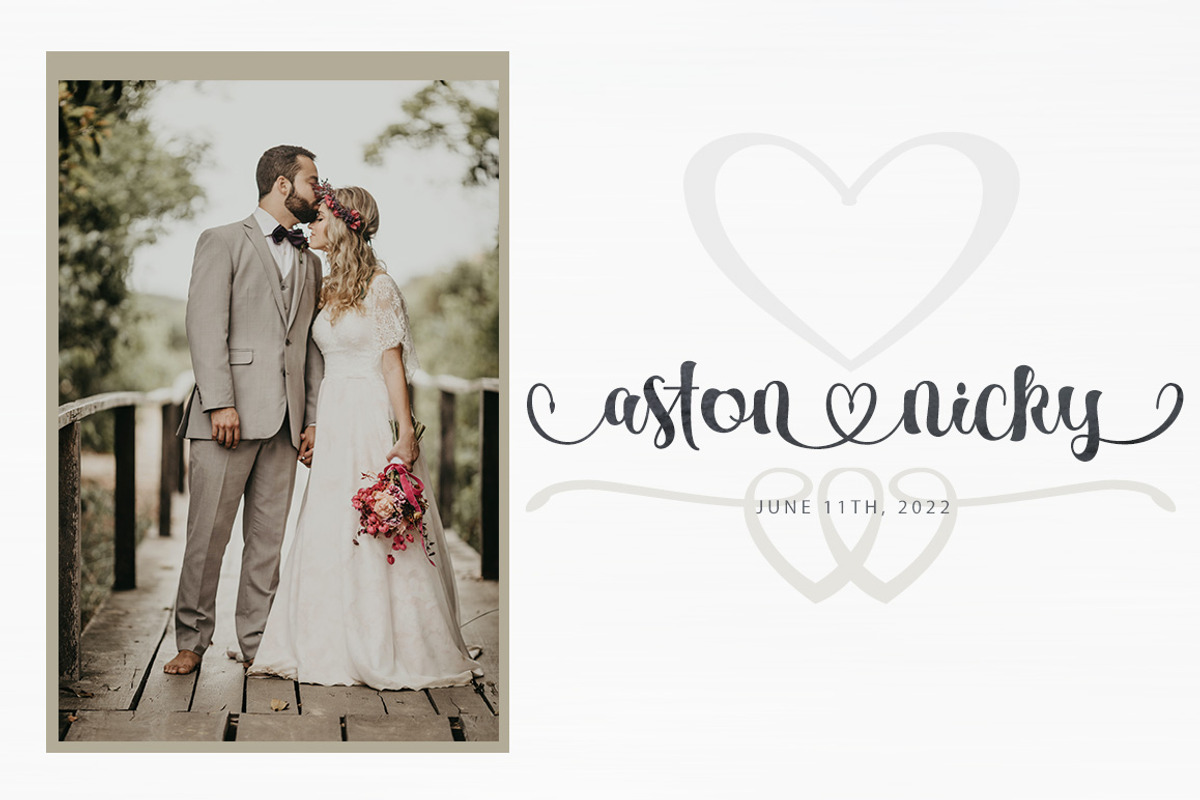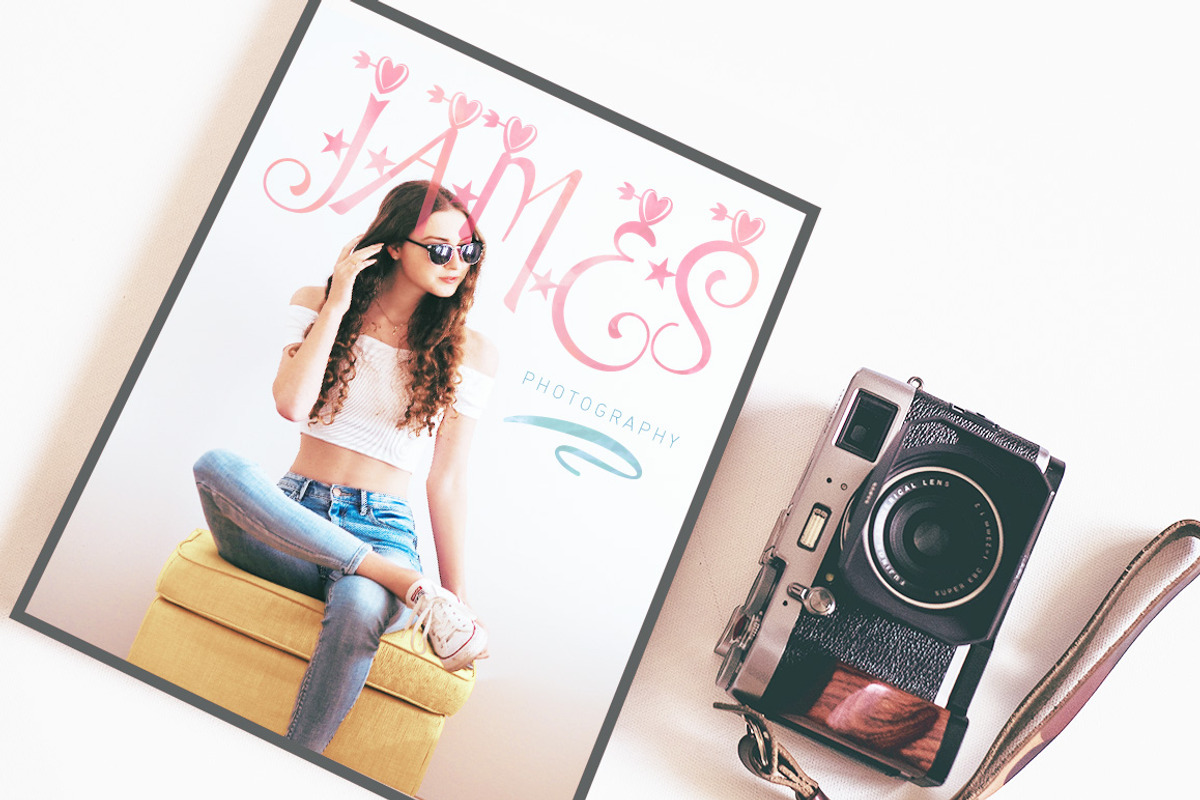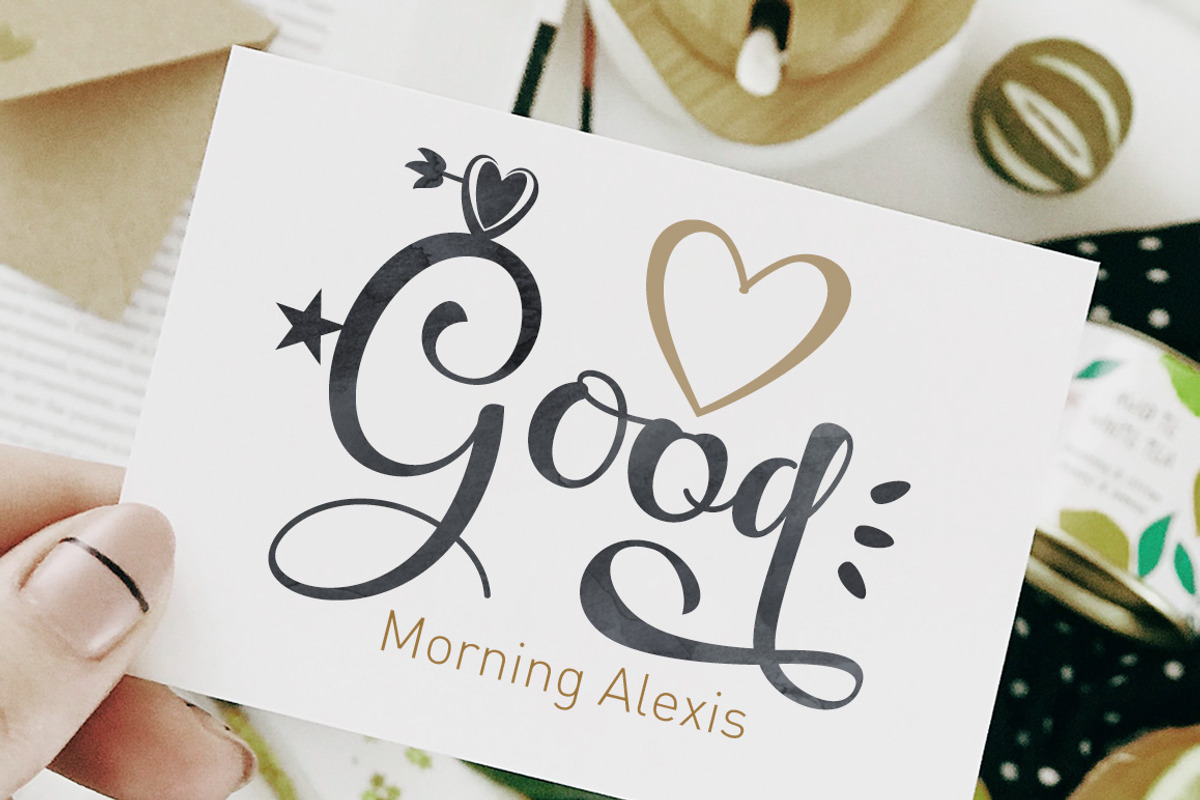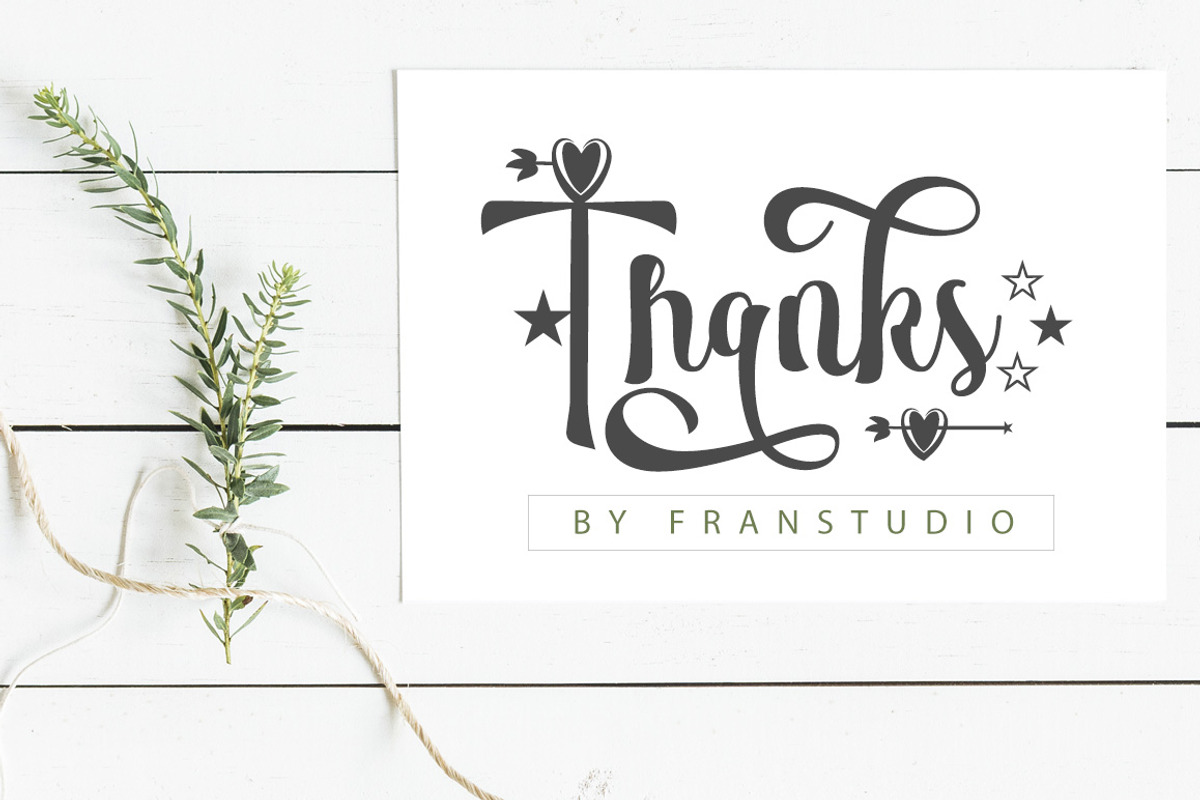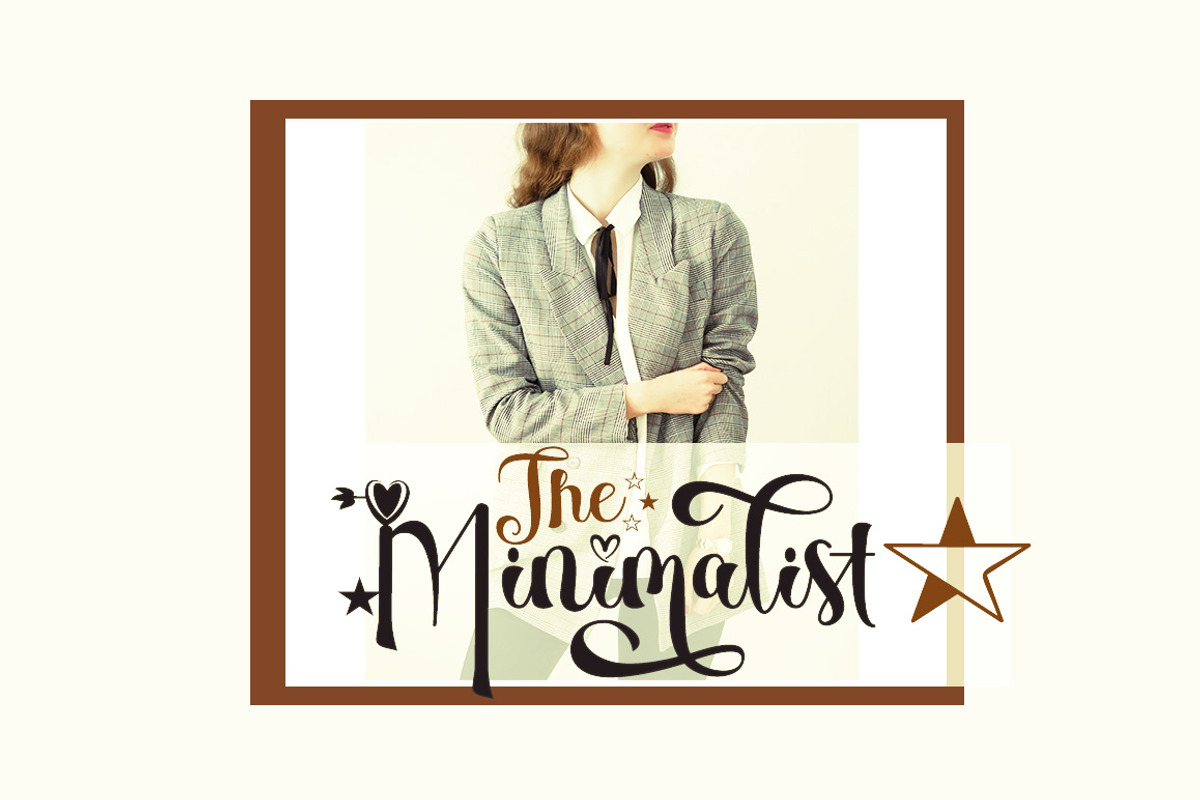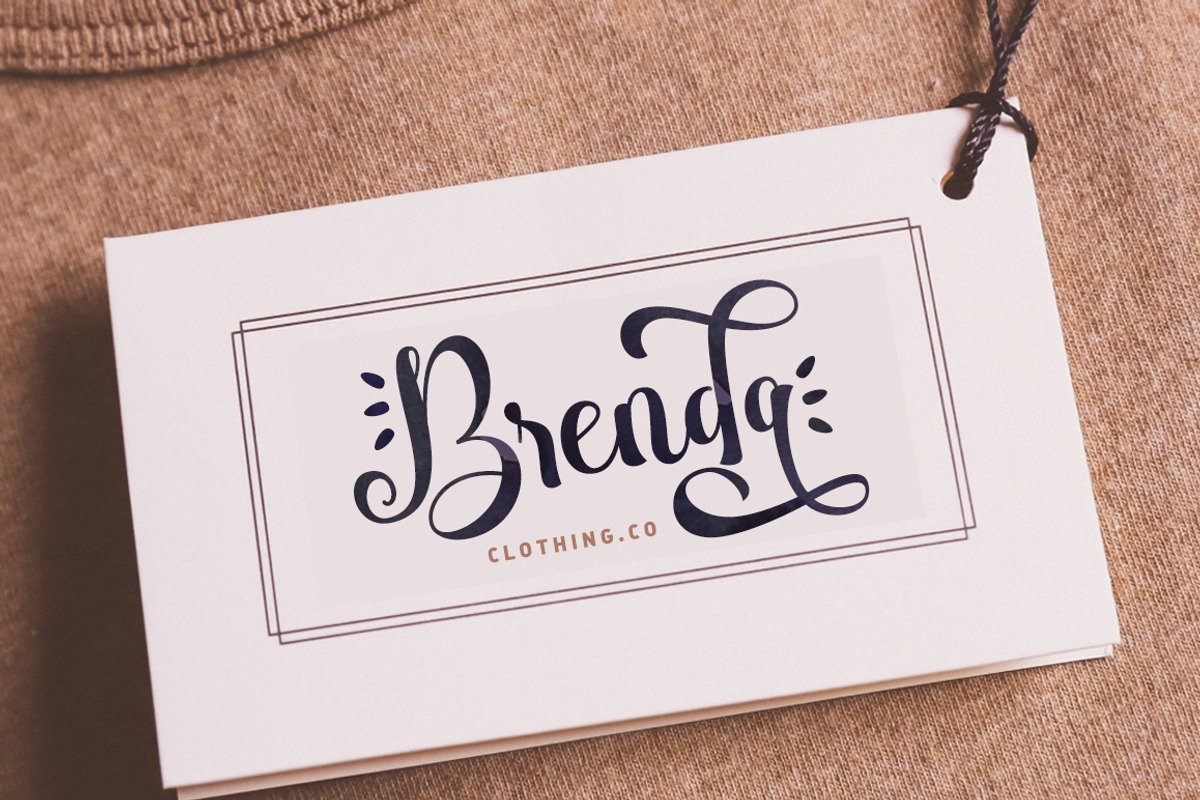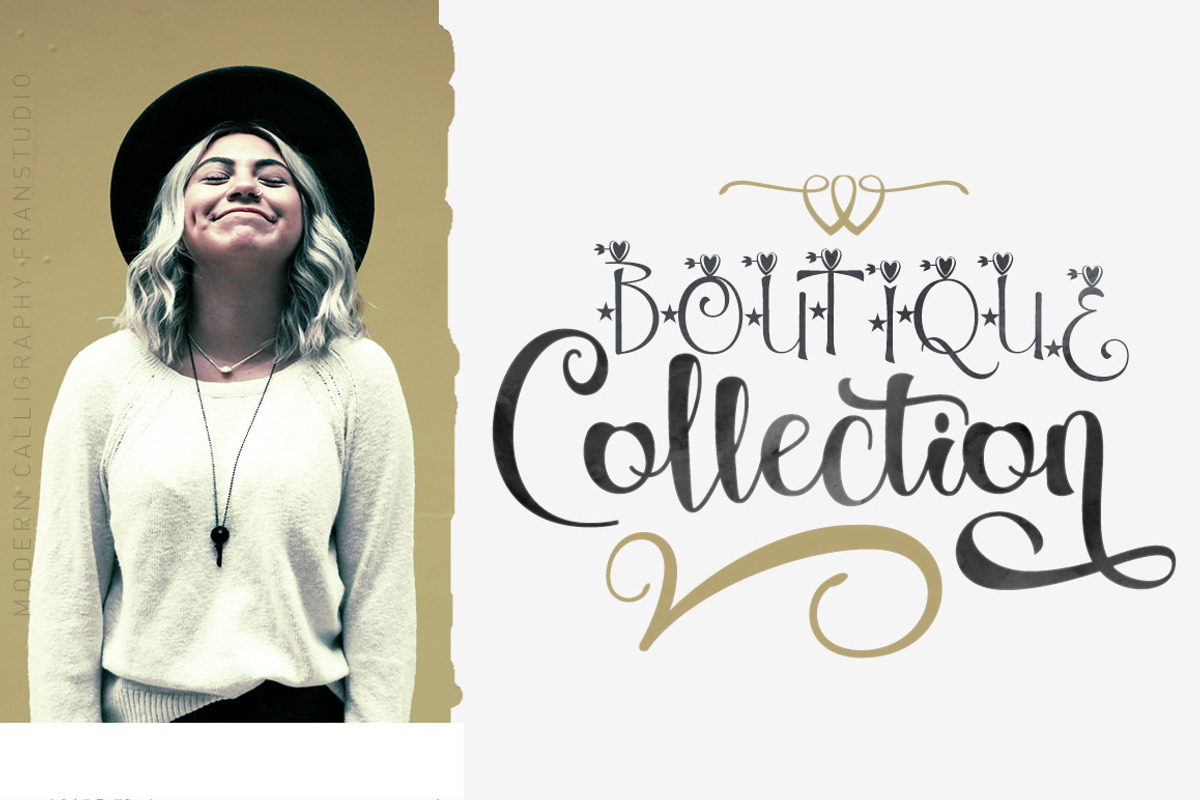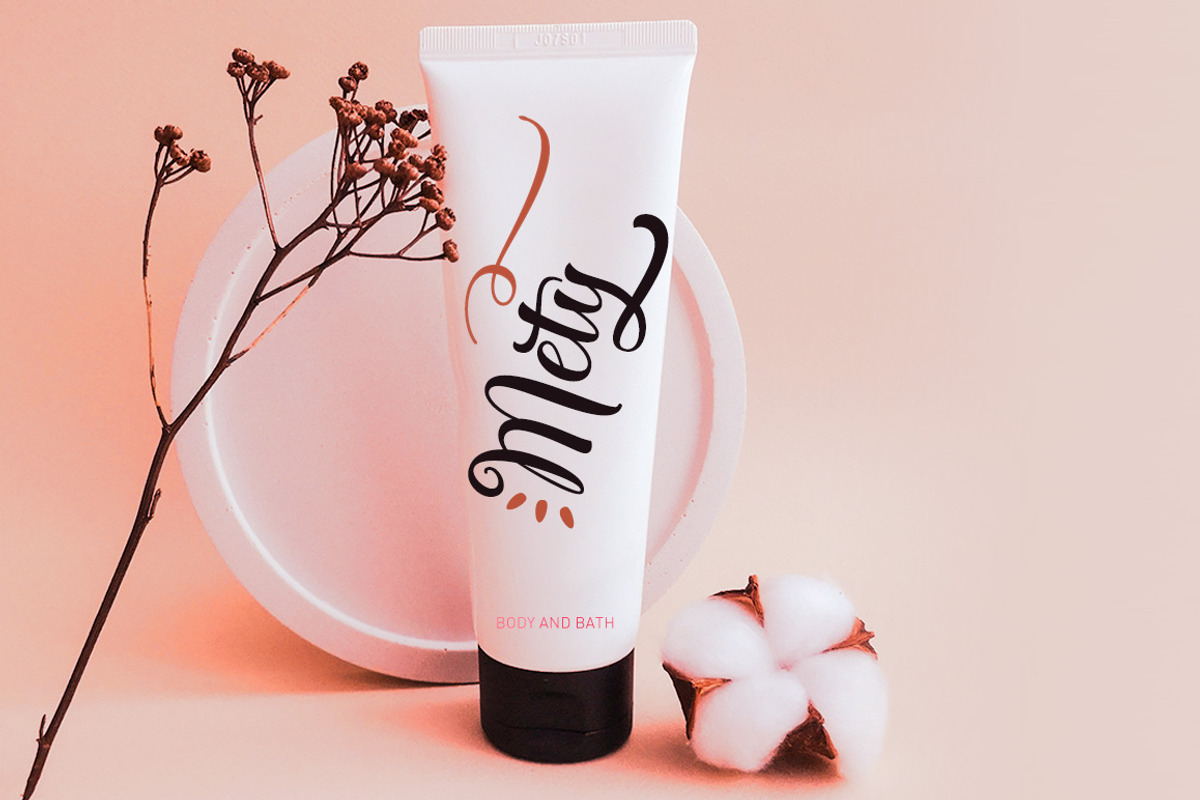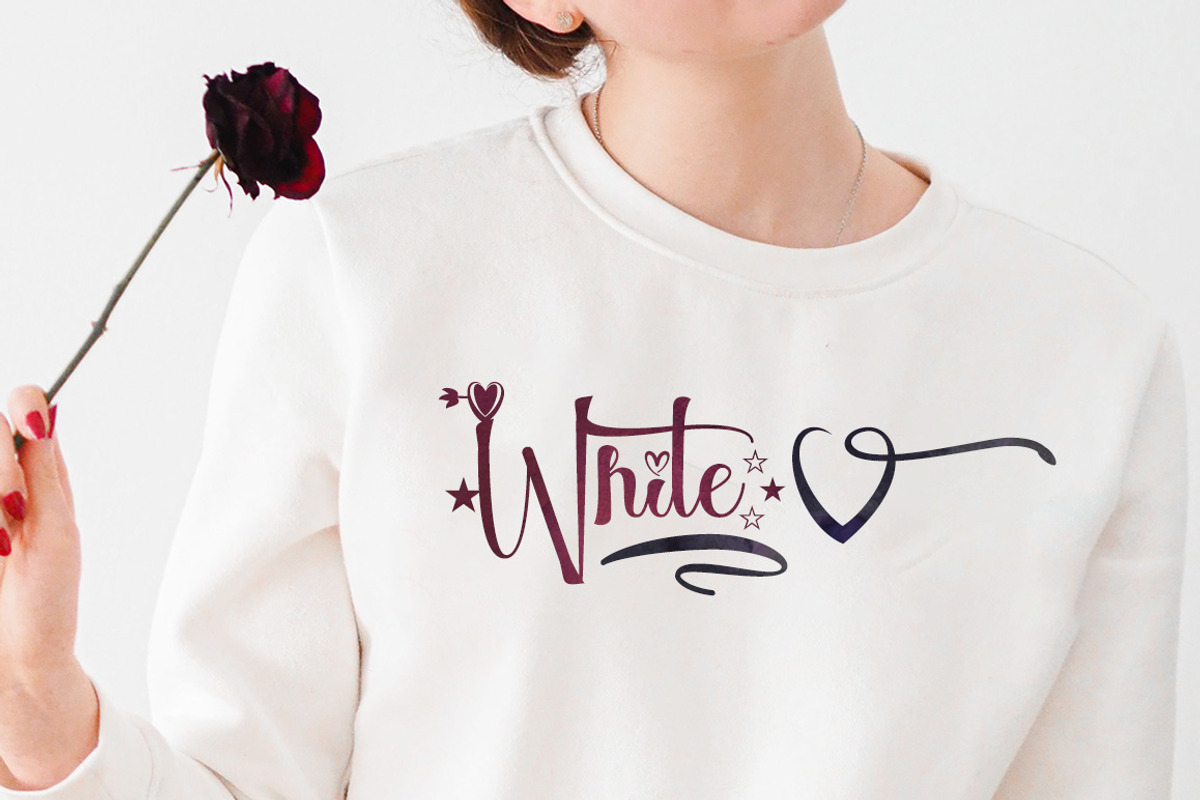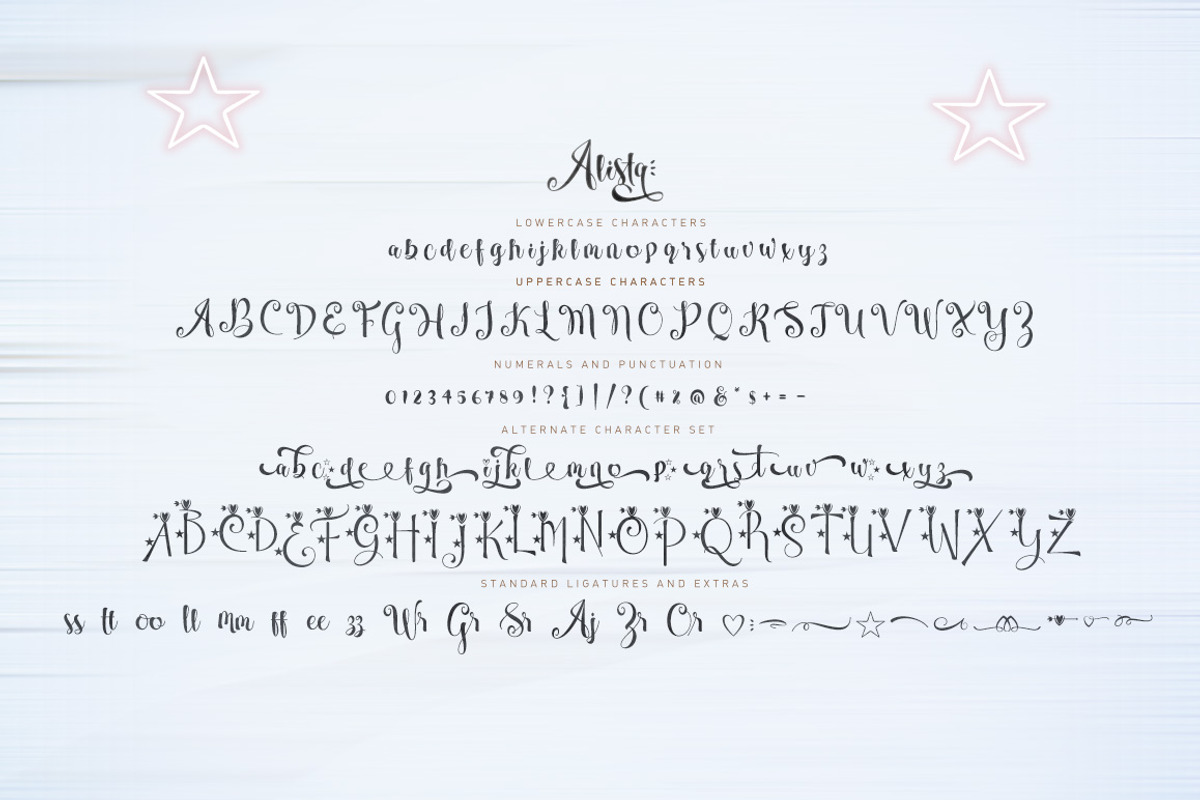
Alista script
Alista is a new, very interesting brushed font. This font family is perfect for branding projects, logos, product packaging, posters, invitations, greeting cards, news, blogs, everything including personal charm and more.
Alista is a new offers OpenType features, some ligatures and swashes, initial and terminal letters, and International support for most Western Languages.